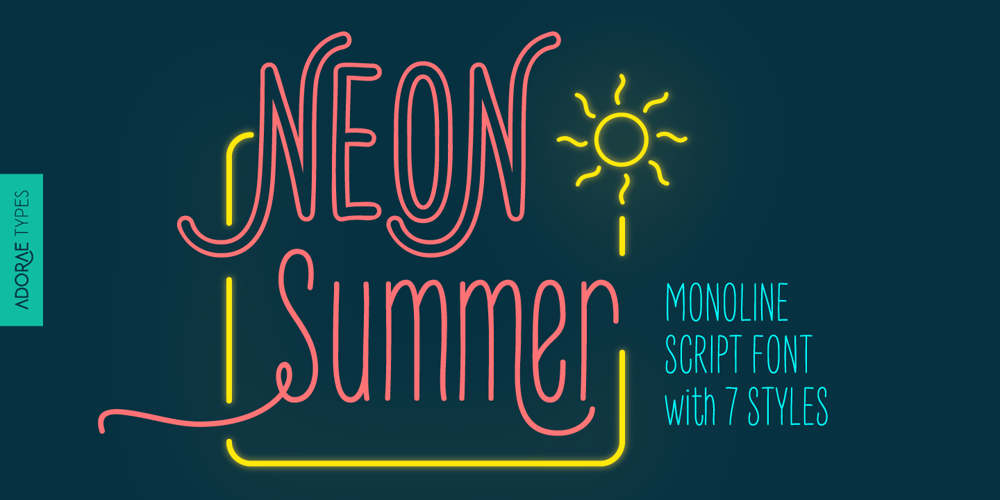
Neon Summer
Neon Summer font
Neon Summer Font Family was designed by Emilia Adorno and published by Adorae Types. Neon Summer contains 7 styles and family package options. Neon Summer is a monoline script font: modern, warm, fun and lovely. It’s a family of 7 styles, some of which are layerable and ready to play with! This typeface offers opentype features such as ligatures, alternates, swashes, and multilingual support with over 500 glyphs. With all of these features and options, it makes a good choice for a more modern, yet warmer and funnier approach in texts, display, posters, book covers, quotes, branding, social media, packaging and more…